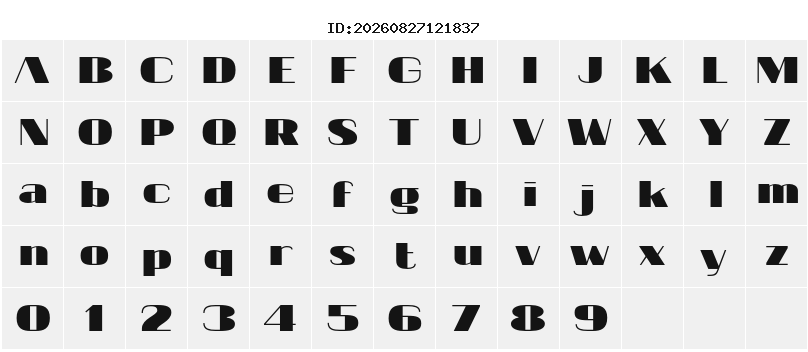
• Font Name: 20 db
• Designer: Jovanny Lemonad
About 20 db.otf
20 db.otf is a modern, elegant sans-serif font designed for ultimate readability and visual harmony. Perfect for branding, headlines, web design, and print materials.